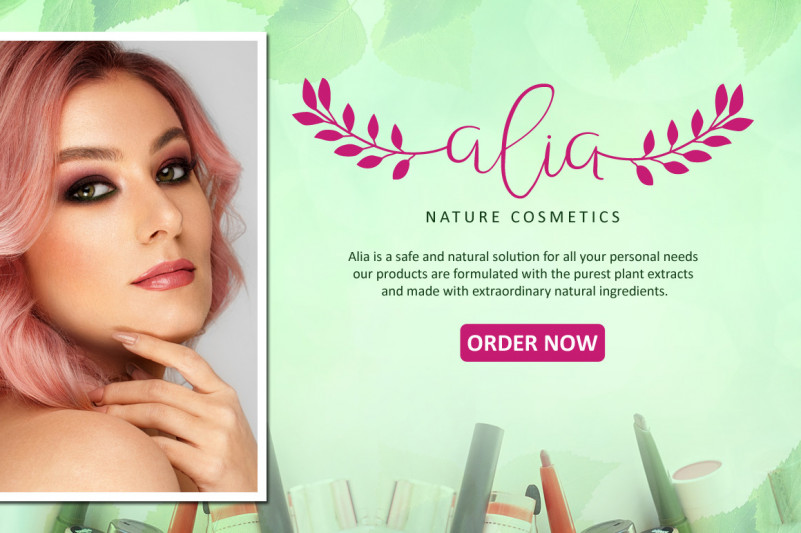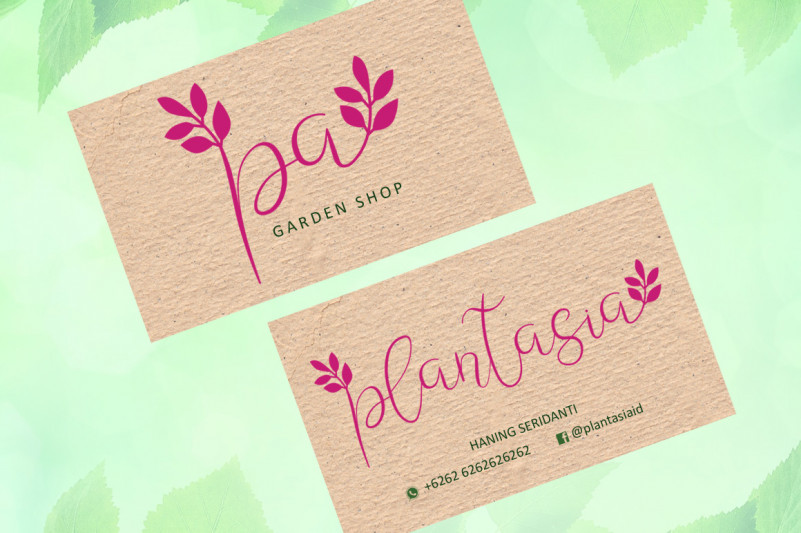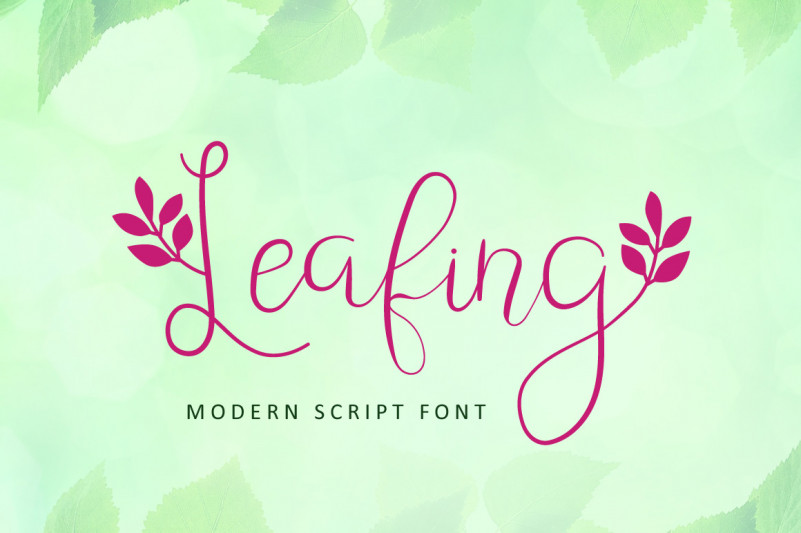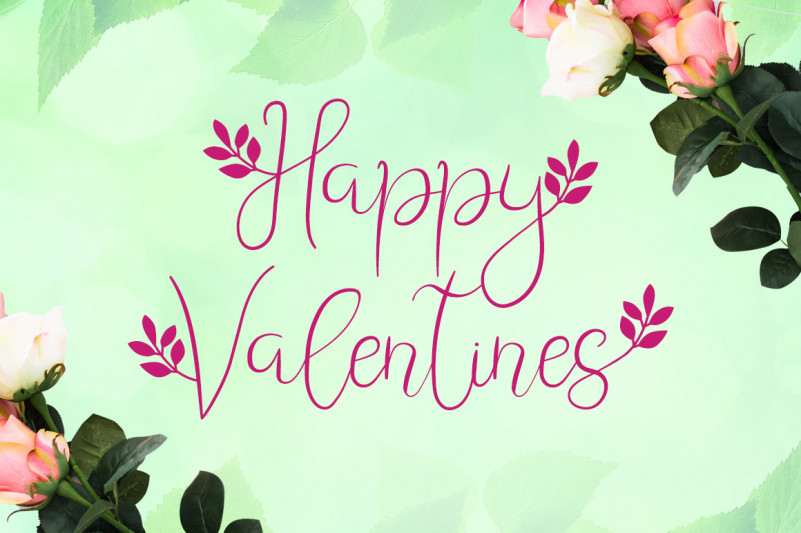
Leafing – Modern Script Font
Leafing is a modern script font mix with leaf floral that bring natural feel. The hand writing script is suitable for you who needs a typeface for headline, logotype, wedding invitations, valentines day, branding, packaging, advertising, watermark, etc. This typeface is comes in uppercase, lowercase, punctuations, symbols & numerals, support opentype features in Private Use Area (PUA)